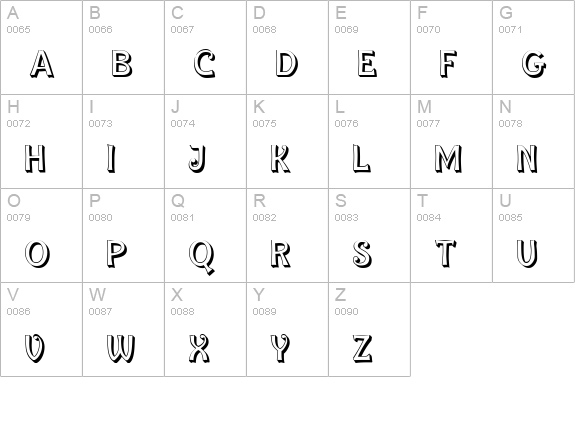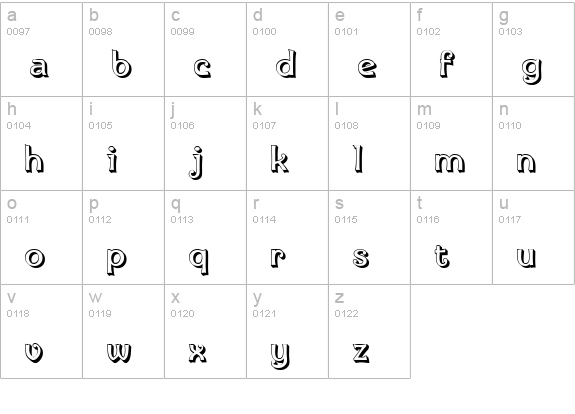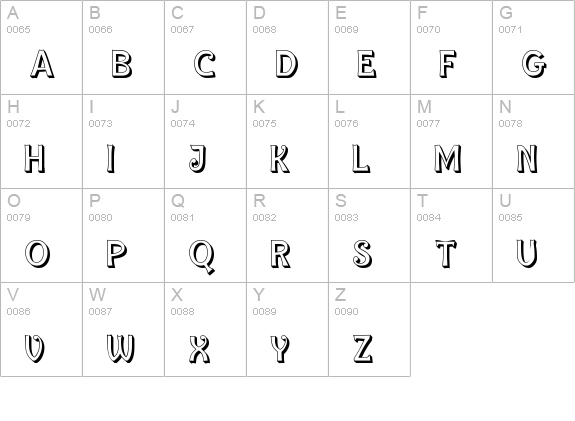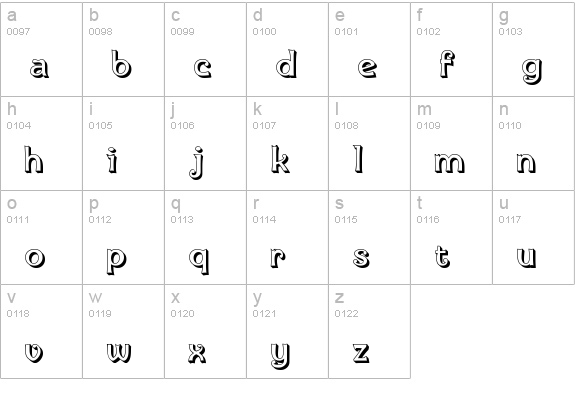
IngoneShadow Font Details
IngoneShadow is a unique and eye-catching font that will add a touch of elegance and sophistication to any design project. With its bold and intricate shadow effect, this font exudes a sense of depth and dimension that is sure to grab attention. Perfect for headlines, titles, and logos, IngoneShadow offers a modern twist on a classic serif font. Its clean lines and sharp edges create a sleek and polished look, while the shadow effect adds a touch of drama and intrigue. What sets IngoneShadow apart from other fonts is not only its striking design, but also the fact that it is available for free. That's right, you can download this stunning font at absolutely no cost from FontsMarket.com. Whether you're a professional designer or a hobbyist, this free font is a must-have in your collection. IngoneShadow is incredibly versatile and can be used in a variety of design projects. From website headers to print advertisements, this font will instantly elevate your work and make a lasting impression. Its bold and commanding presence is perfect for conveying a sense of power and authority, while its intricate details add a touch of sophistication and elegance. Don't miss out on the opportunity to add IngoneShadow to your font library. Download it for free today at FontsMarket.com and unlock a world of design possibilities. Whether you're working on a personal project or a client's assignment, IngoneShadow will help you create stunning and memorable designs that truly stand out.